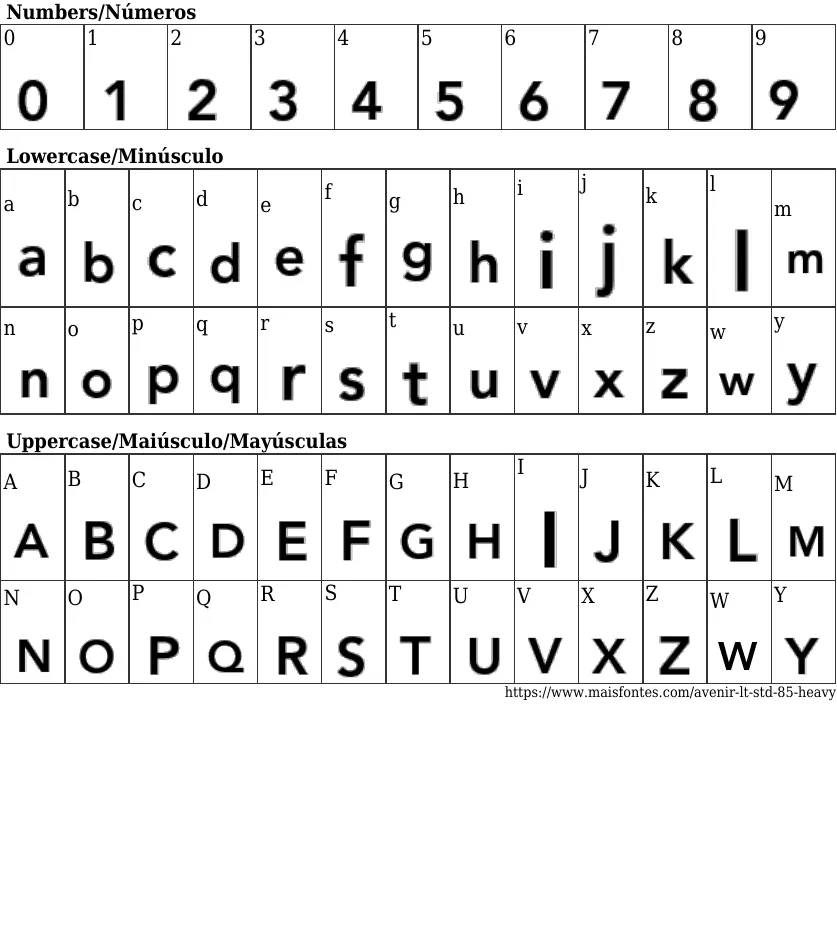
However, the font was released by mergenthaler linotype company in 1988 for public use. The word avenir is french for “future”.
Avenir book font google download. Adrian frutiger designed avenir in 1988, after years of having an interest in sans serif typefaces. Making the web more beautiful, fast, and open through great typography Avenir font family free download.
40.6k views memory boosting fonts. Avenir is a so famous sans serif font. Apart from this font, he is known for creating universe and frutiger fonts.
There are different designers who would just love to use this font in their new design. With an internet of linotype, he said he felt an obligation to design a linear sans in the tradition of erbar and futura, but to also make use of the experience and. The word of this font is french for “future”.
While avenir is a beautiful timeless font, the following alternatives are very similar and deserve some consideration considering they are free to use. Google fonts is a library of 1,093 free licensed font families and apis for convenient use via css and android. In an interview with linotype, he said he felt an obligation to design a linear sans in the tradition of erbar and futura, but to also make use of the experience and stylistic developments of the twentieth century.
Avenir font is designed in 1988 by a professional designer. The way of authorization is for reference only. This font family is one of the most first choice for any designer.
51 professional avenir book oblique fonts to download. Nunito sans is an extremely close match for avenir. These nuances aid in legibility and give avenir a harmonious and sensible appearance for both texts and headlines.
Avenir font family style is designed by a professional designer adrian frutiger in 1988. Making the web more beautiful, fast, and open through great typography download and install the avenir book font for photoshop, macos, windows, web in all formats (avenir book woff2, avenir book woff. Avenir font style is designed in 1988 by a famous swiss font designer adrian frutiger after many years of having interest in sans serif typefaces.
Originally designed by vernon adams, then later expanded to include more weights by jacques le bailly.